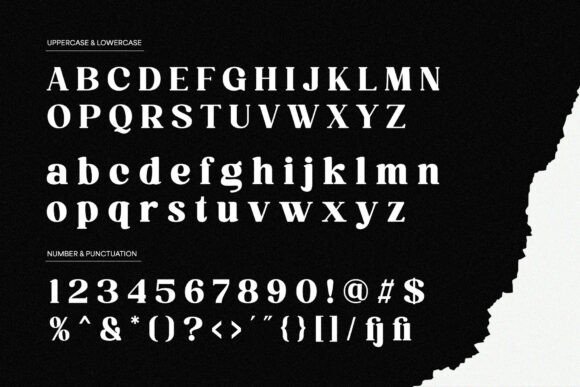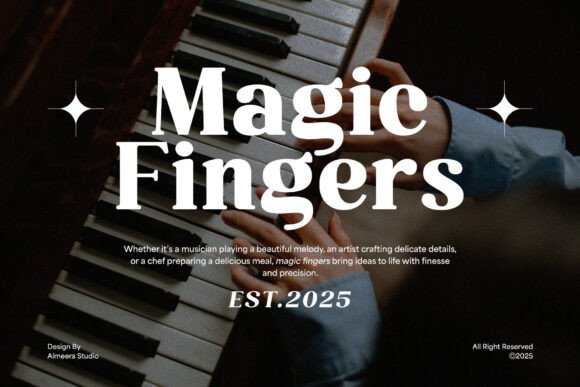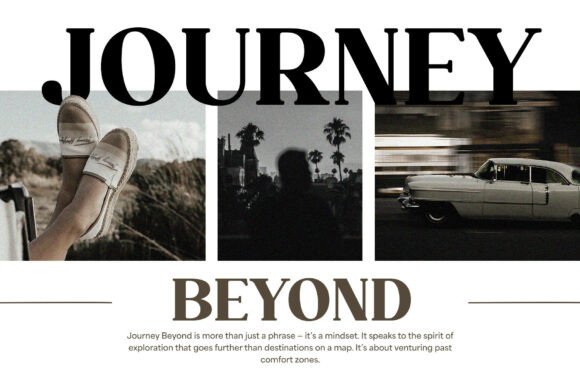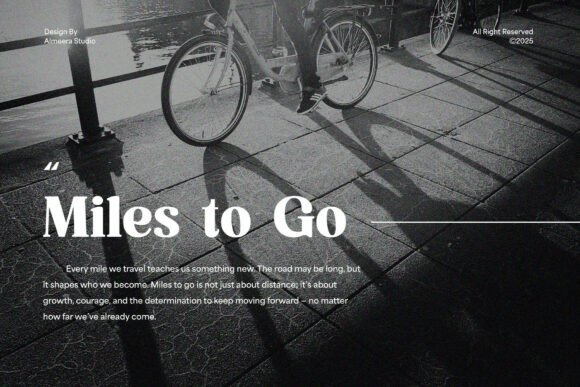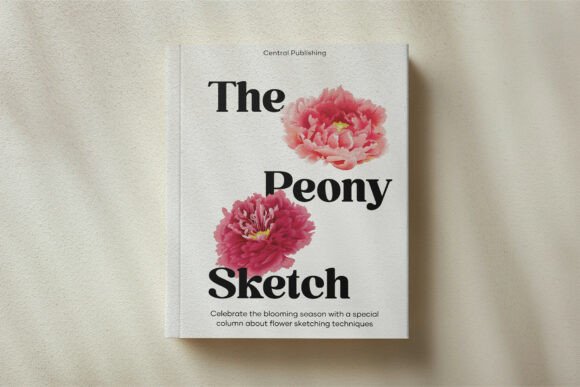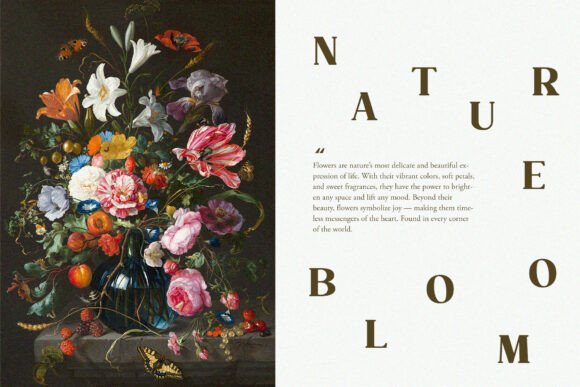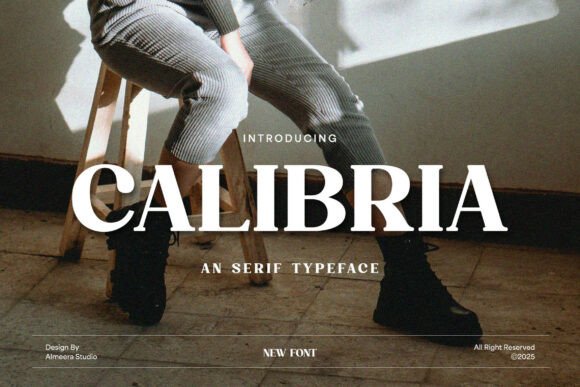
Introducing Calibria Font: Elevate Your Designs with Confidence and Style
In the world of typography, fonts play a crucial role in conveying the tone and personality of a brand or creative project. With numerous font options available, finding the perfect one that exudes confidence, modernity, and sophistication can be a daunting task. However, if you’re looking for a bold serif font that checks all these boxes, look no further than Calibria Font. Designed to bring a confident, modern touch to your creative projects, Calibria is the perfect choice for designers and crafters seeking to make a lasting impression.
The Calibria Advantage: A Bold Serif Font with a Timeless Twist
Calibria is a bold serif font that boasts high contrast strokes, giving it a strong presence that’s hard to ignore. Its classic elegance is perfectly balanced with a contemporary edge, making it an ideal choice for designs that demand both strength and style. Whether you’re working on editorial headlines, fashion branding, posters, or sophisticated packaging, Calibria is the perfect font to elevate your project to the next level.
Key Features of Calibria Font
- Bold Serif Design: Calibria’s bold serif design makes it perfect for headlines, titles, and other display text.
- High Contrast Strokes: The font’s high contrast strokes add a touch of sophistication and elegance to your designs.
- Classic Elegance with a Contemporary Edge: Calibria’s classic design is perfectly balanced with a modern twist, making it suitable for a wide range of creative projects.
- Strong Presence: The font’s strong presence makes it perfect for designs that demand attention.
Perfect for Editorial Headlines and Fashion Branding
Calibria’s bold design and high contrast strokes make it an excellent choice for editorial headlines. The font’s classic elegance and contemporary edge also make it perfect for fashion branding, where style and sophistication are paramount. Whether you’re designing a magazine cover, fashion brochure, or brand identity, Calibria is the perfect font to make a lasting impression.
Use Calibria for Posters and Sophisticated Packaging
Posters and packaging require a font that can stand out and make a statement. Calibria’s bold design and strong presence make it perfect for these applications. The font’s classic elegance and contemporary edge also ensure that your designs look sophisticated and high-end.
Why Choose Calibria Font?
With so many font options available, why choose Calibria? Here are just a few reasons:
- Unique Design: Calibria’s bold serif design and high contrast strokes make it a unique and distinctive font.
- Versatility: The font is suitable for a wide range of creative projects, from editorial headlines to fashion branding and packaging.
- Elegance and Sophistication: Calibria’s classic elegance and contemporary edge make it perfect for designs that demand both strength and style.
In conclusion, Calibria Font is a bold serif font designed to bring a confident, modern touch to your creative projects. With its high contrast strokes, classic elegance, and contemporary edge, Calibria is perfect for designers and crafters seeking to make a lasting impression. Whether you’re working on editorial headlines, fashion branding, posters, or sophisticated packaging, Calibria is the perfect choice. Embrace timeless typography with a bold twist through Calibria and elevate your designs to the next level.